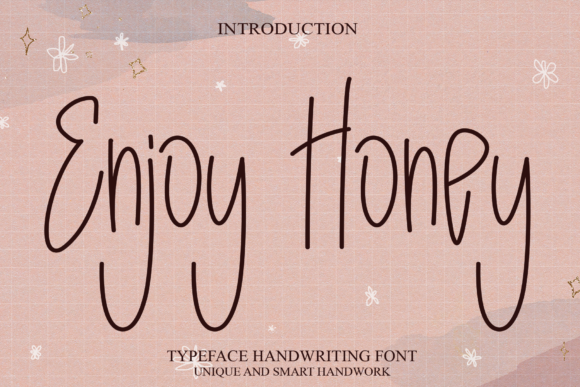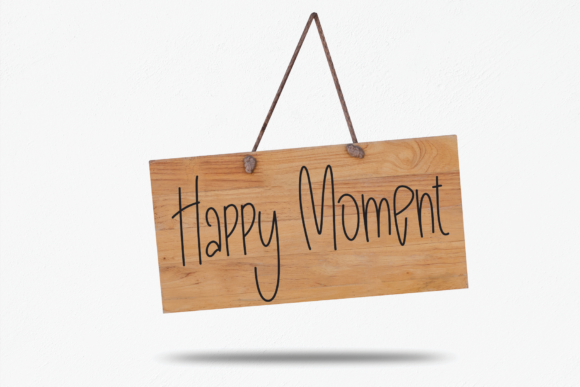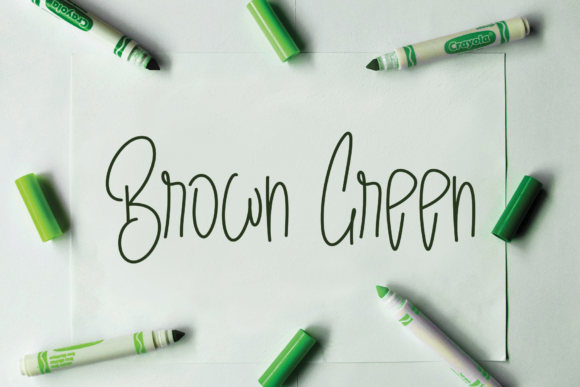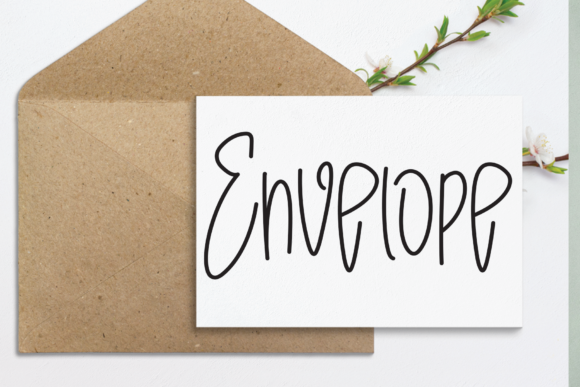
Enjoy Honey Font
About Enjoy Honey Font
Enjoy Honey is a lovely and delicate script font that exudes elegance and class. This font was particularly crafted for those who need a beautiful and refreshing look to their designs.